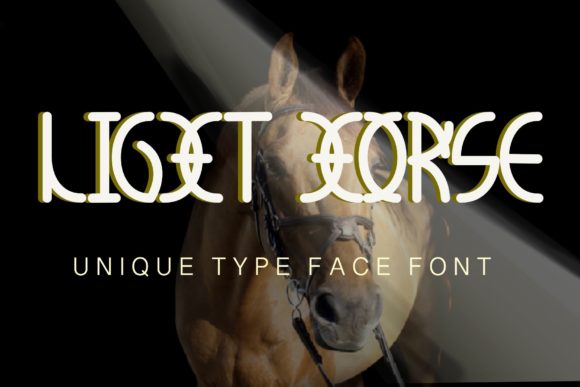
Introducing Light Horse Font – The Ultimate Font for Memorable Designs!
Prepare to be captivated by the stunning Light Horse Font, a display font meticulously crafted by the renowned designer Ansart. This extraordinary font is adorned with a modern flair that radiates sophistication and elegance.
Whether you're an ardent gamer, a creative entrepreneur, or a discerning artist, Light Horse Font is your perfect companion. Its versatility knows no bounds, making it the ideal choice for a myriad of projects.
Elevate your logos to new heights, create eye-catching stationery that leaves a lasting impression, or design captivating book covers that ignite the imagination. Light Horse Font effortlessly transforms ordinary designs into extraordinary masterpieces.
But its allure extends far beyond its aesthetic charm. Light Horse Font is remarkably easy to use, ensuring a seamless and enjoyable experience for every user. Its smooth curves and clean lines lend a touch of class to any project, effortlessly capturing the attention of your audience.
With Light Horse Font, you hold the key to unlocking endless creative possibilities. From website designs that captivate to social media posts that spark engagement, this font empowers you to make a statement that resonates with your customers.
Imagine the impact of a breathtaking monogram crafted with Light Horse Font, proudly adorning your documents and personal belongings. Its unique style exudes a sense of individuality and flair, making every creation a reflection of your discerning taste.
Experience the transformative power of Light Horse Font today! Let its captivating presence elevate your designs, ignite your creativity, and leave an unforgettable mark on the hearts of your audience.